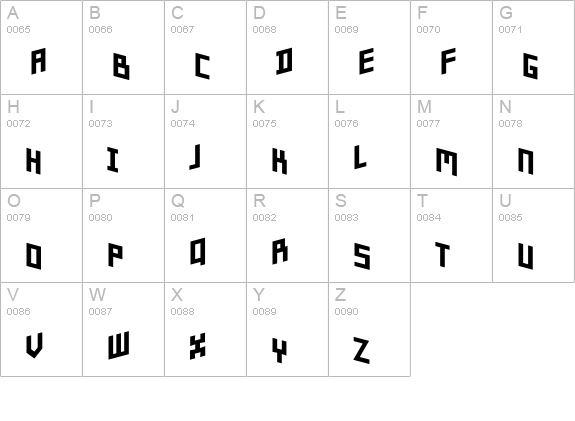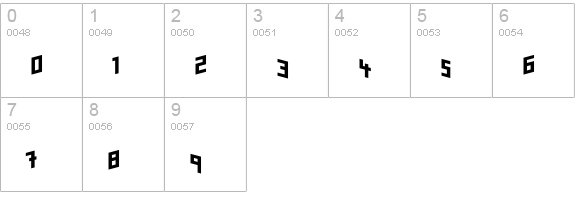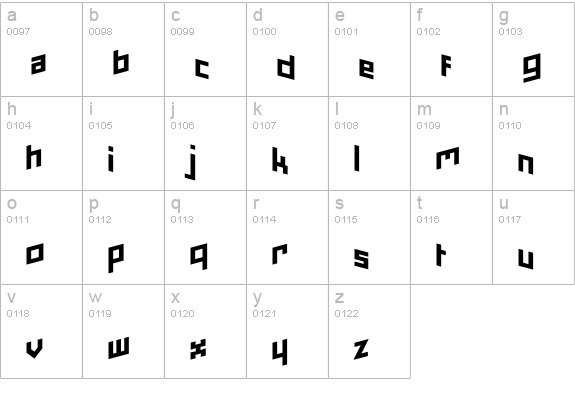
Minimum-BongNoir is a sleek and sophisticated font that exudes elegance and modernity. With its minimalistic design and noir-inspired aesthetic, this font is perfect for adding a touch of sophistication to any project. The clean lines and sharp angles of Minimum-BongNoir make it versatile and suitable for a wide range of design applications, from branding to editorial design. What sets Minimum-BongNoir apart is not only its stylish design but also the fact that it is completely free to download. That's right, you can access this stunning font at no cost on FontsMarket.com. Whether you're a designer looking to elevate your creative projects or a business owner seeking a unique and eye-catching font for your brand, Minimum-BongNoir is the perfect choice. Download it today and add a touch of elegance to your designs.